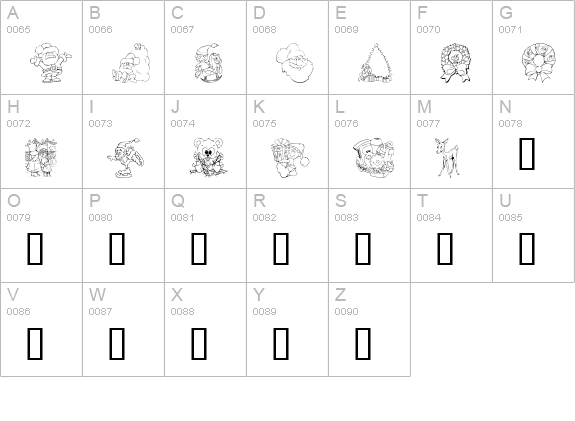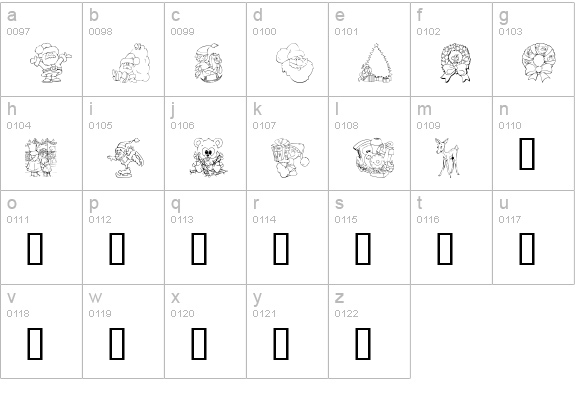
KR Christmas Color Me Font Details
The KR Christmas Color Me font is a whimsical and festive typeface perfect for adding a touch of holiday cheer to your designs. This unique font features intricate Christmas-themed patterns and designs that will bring a colorful and playful aesthetic to any project. Whether you're creating greeting cards, party invitations, or holiday banners, this font is sure to make your text stand out with its vibrant and joyful appearance. Best of all, the KR Christmas Color Me font is available for free download at FontsMarket.com. With just a few clicks, you can add this delightful font to your collection and start using it in your creative projects right away. Don't miss out on this opportunity to enhance your holiday designs with this fun and versatile font. Download the KR Christmas Color Me font today and spread the holiday spirit with every word you write.